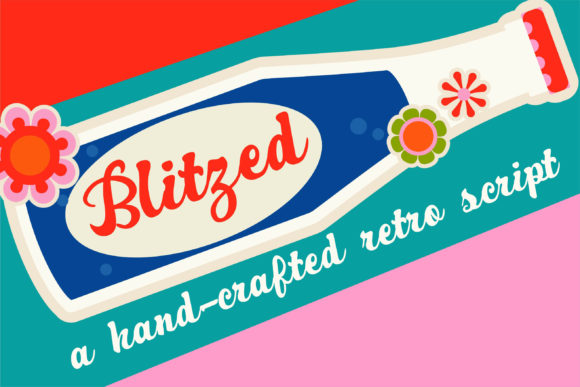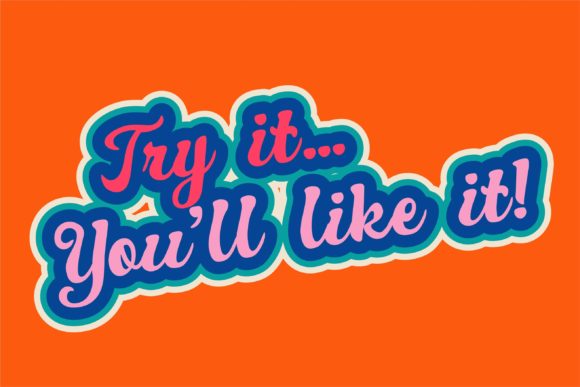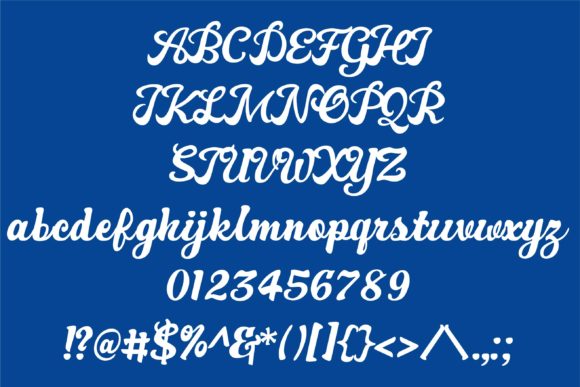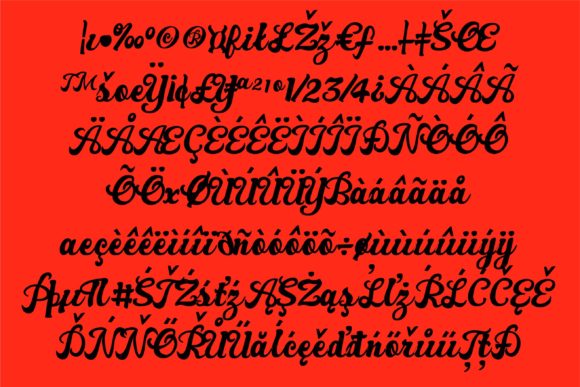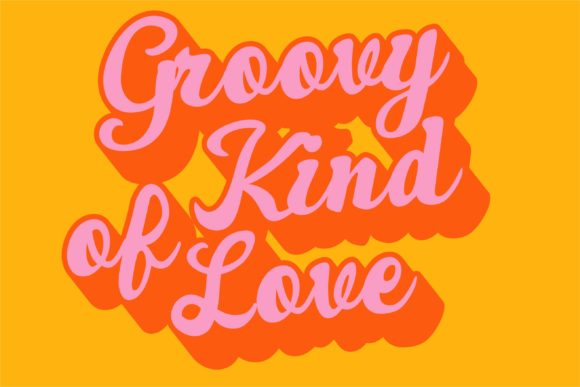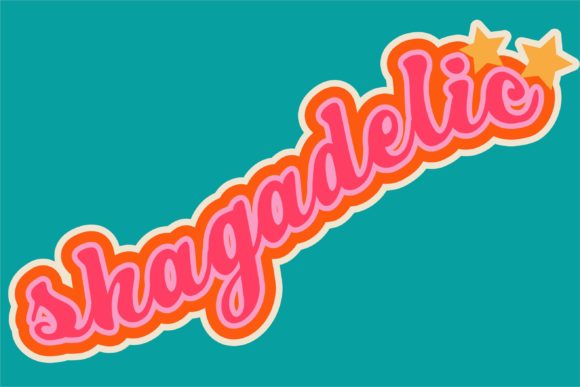
ZP Blitzed Font
About ZP Blitzed Font
Blitzed is a cute and casual handwritten font with an incredibly friendly feel. It features gorgeous swashes and ligatures that make this script incredibly versatile. Blitzed will look outstanding in any context, whether it’s being used on busy backgrounds or as a standalone headline!